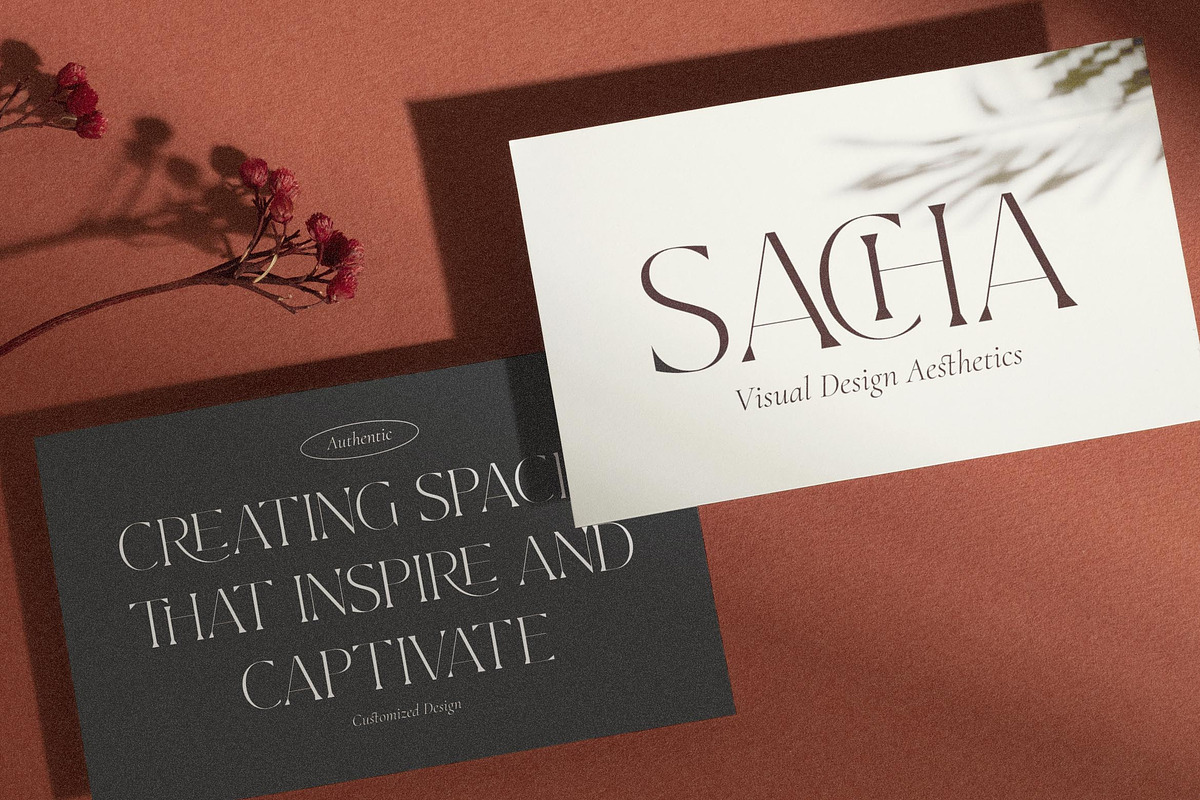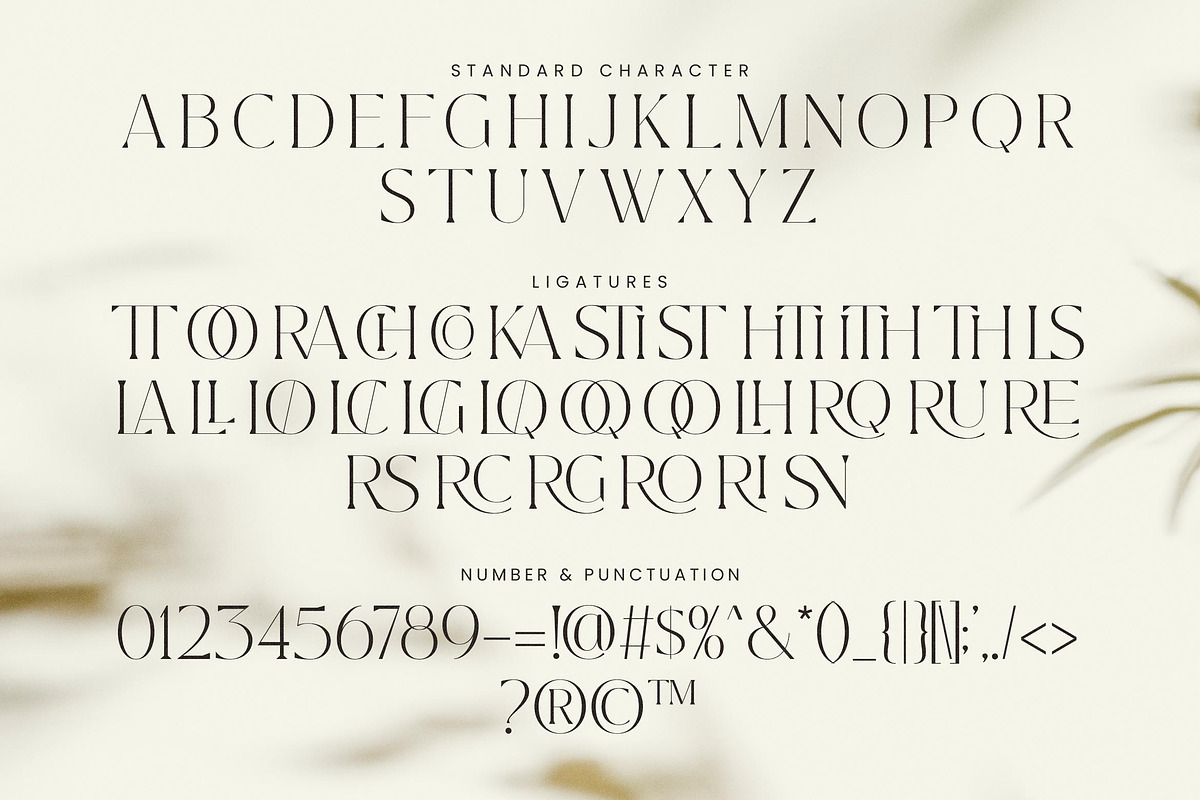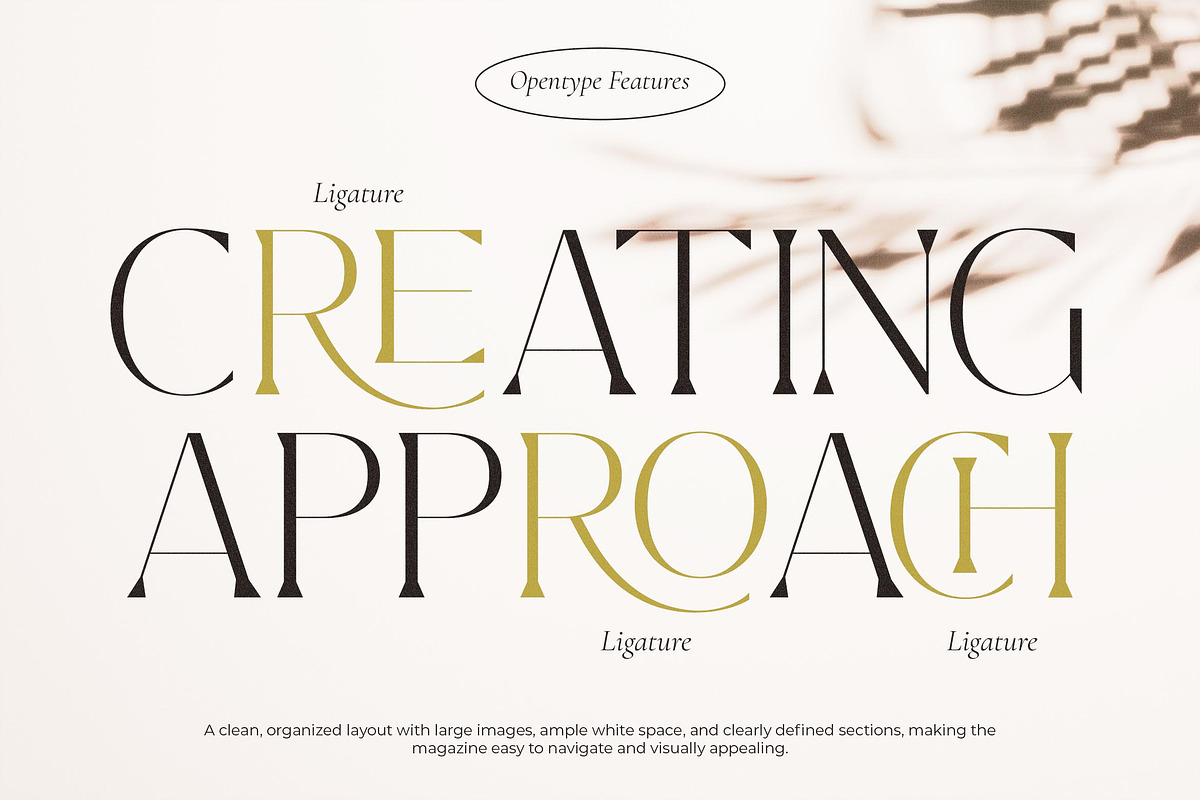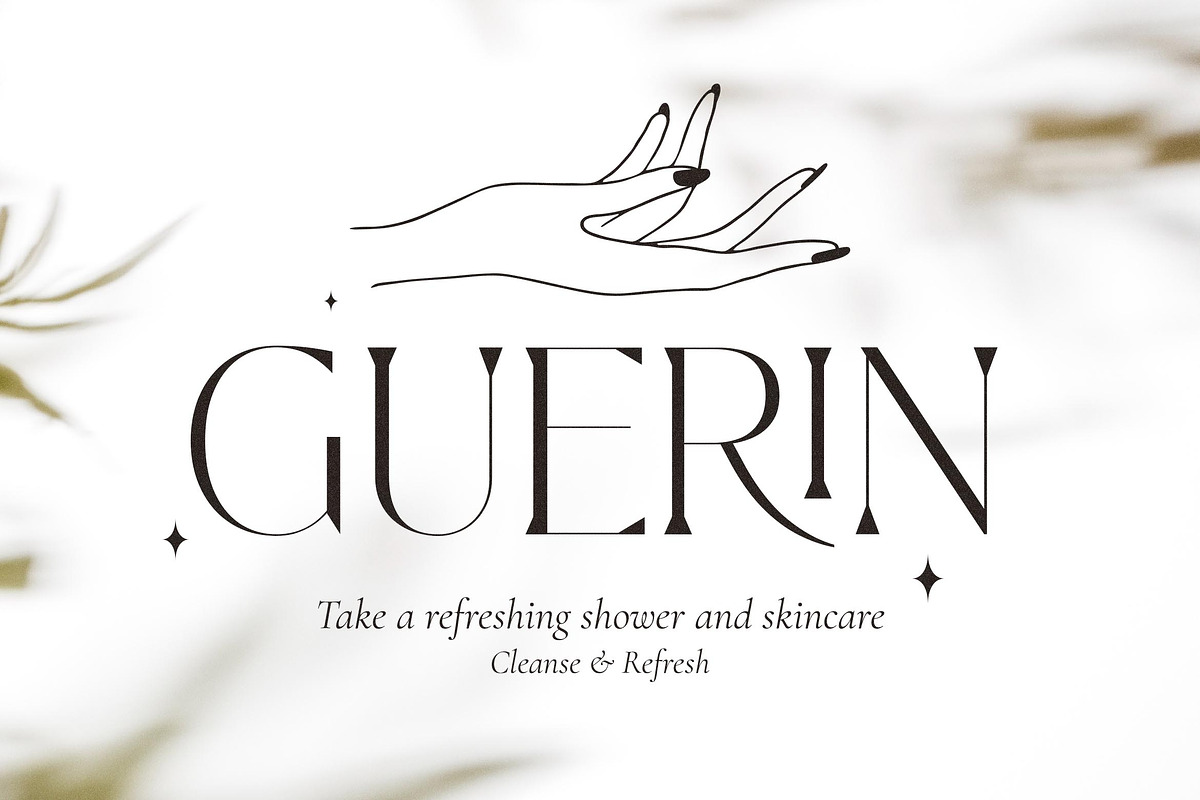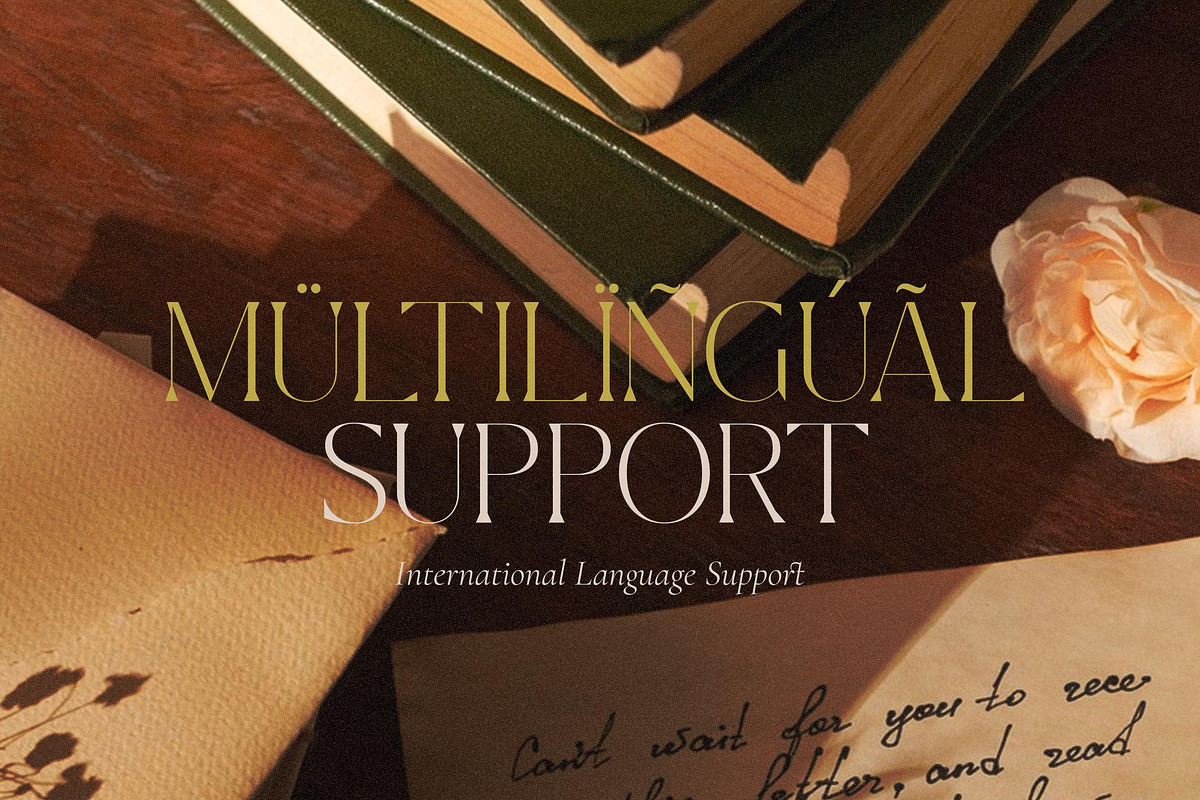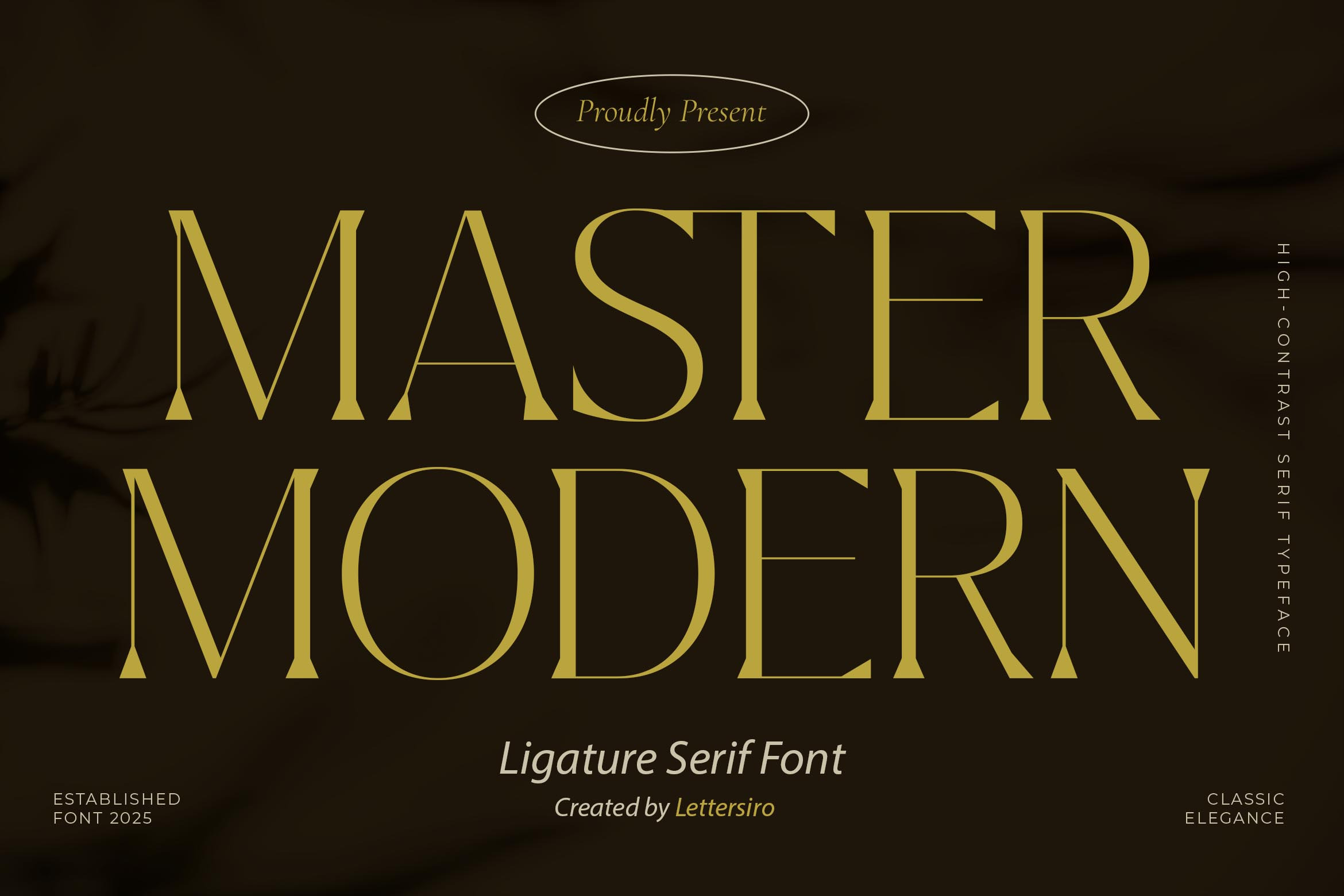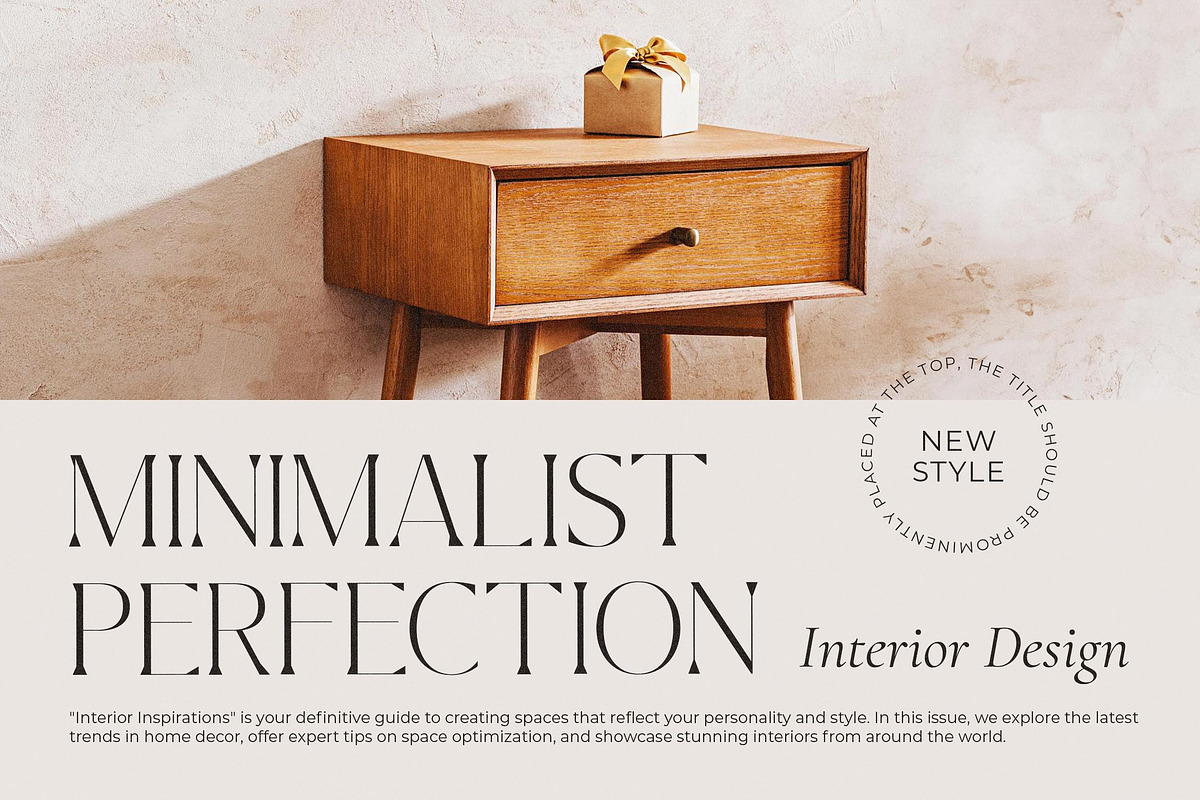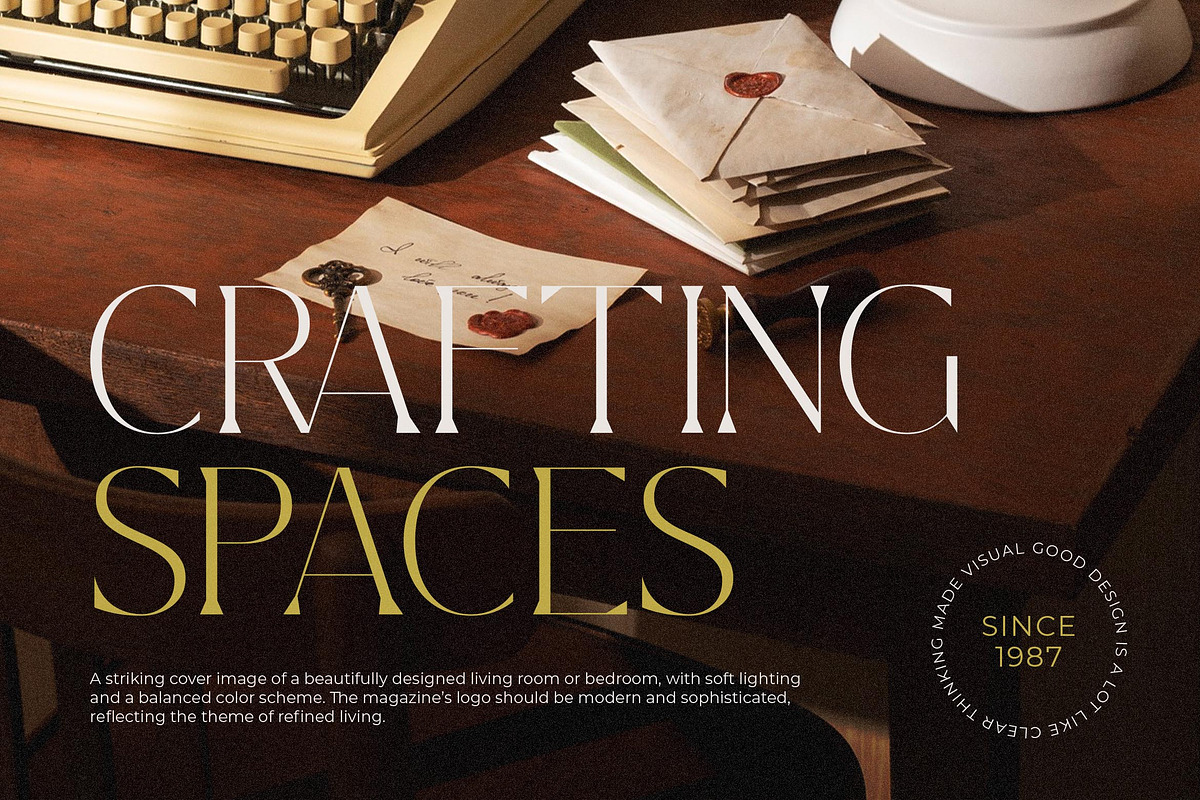
Master Modern - Ligature Serif Font
Master Modern is a high-contrast serif font with a refined and elegant style, designed to bring a sophisticated edge to your branding and design projects. Its clean lines and sharp curves create a timeless look, while the addition of 29 unique ligatures adds creativity and distinctiveness to every word you type.
Perfectly suited for logos, headlines, magazine titles, and modern branding, Master Modern blends a classic serif foundation with contemporary flair, making it versatile for both print and digital applications. Whether you’re crafting a bold editorial spread or designing an exclusive brand identity, this typeface delivers both style and functionality.
- Modern Ligature Serif Style – Designed for elegant branding, editorial, and headline applications
- Unique Ligatures – 29 custom ligatures for distinctive letter combinations and creative typography
- Complete Character Set– Uppercase letters, numbers, punctuation, and symbols
- Multilingual Support – Supports Western European languages
- Logo Design – Create stylish and professional wordmarks that stand out
- Magazine & Editorial – Ideal for impactful headlines, subheadings, and page titles
- Advertising & Promo – Craft attention-grabbing campaign visuals and promotional materials
- Product Packaging – Add an elegant and modern touch to your visual identity
- Modern Branding – Perfect for companies, startups, and creative projects seeking a distinctive serif style